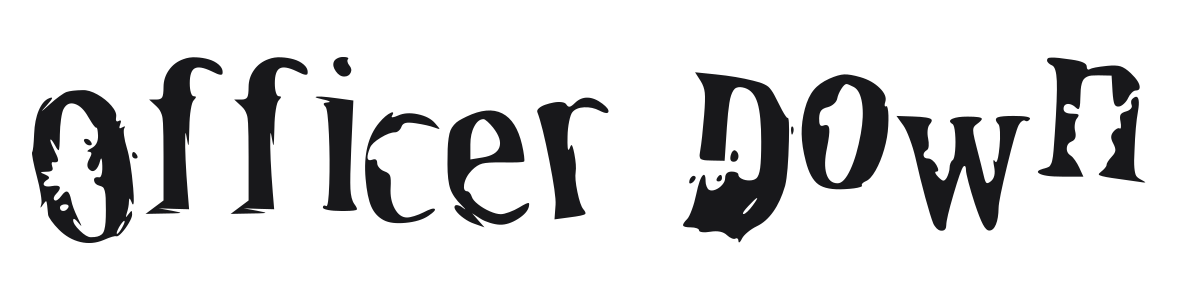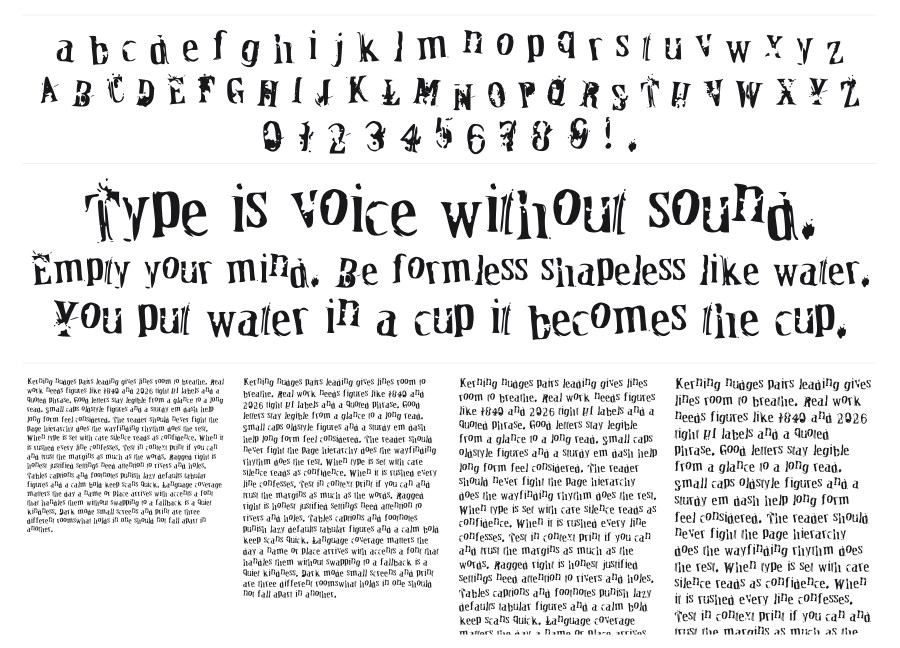
Officer Down
by Davy Meykens
Officer Down is a distressed serif display font with a raw, decayed character inspired by gothic and noir aesthetics. The letters appear to be fragmenting, with ink breaks and ragged edges that give each character a tense, worn-out energy. Best used at large sizes where the texture and drama can fully register.